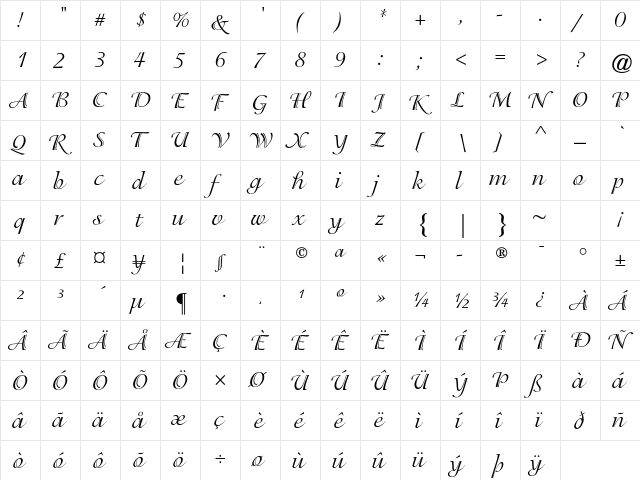
ITC Isadora Std Regular
| Designer | Kris Holmes |
Design Context for ITC Isadora Std Typeface
ITC Isadora Std is a composed and adaptable typeface that performs quietly and consistently across a wide range of design contexts.